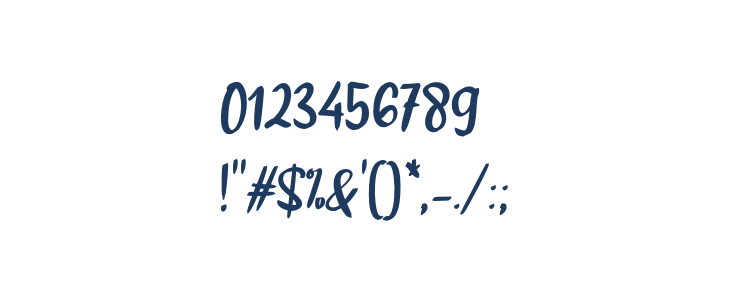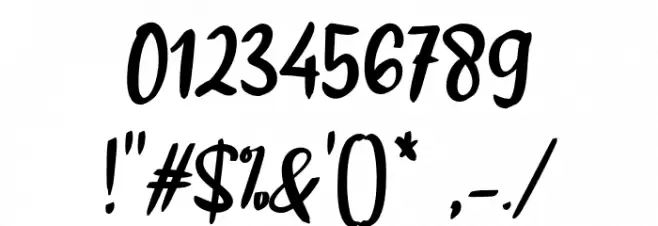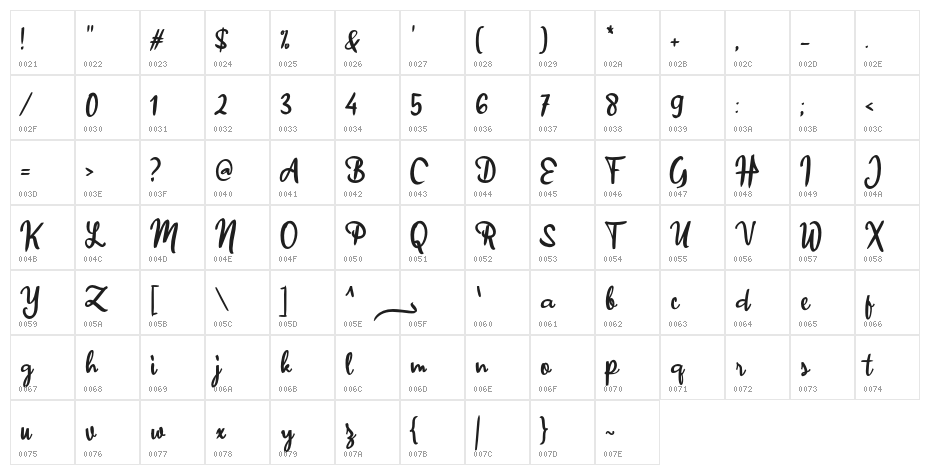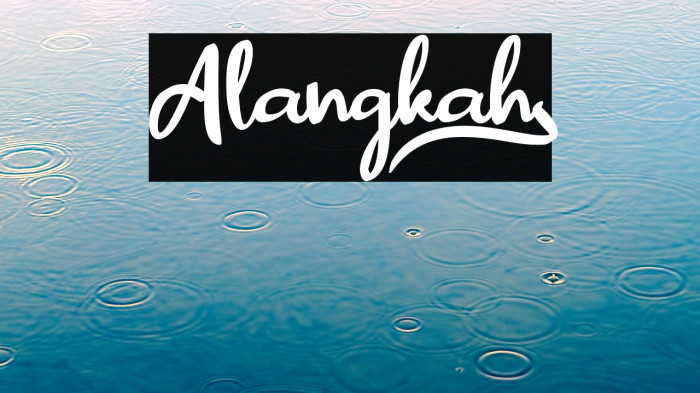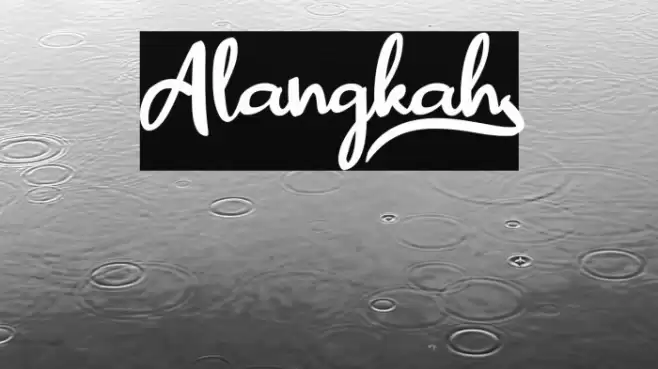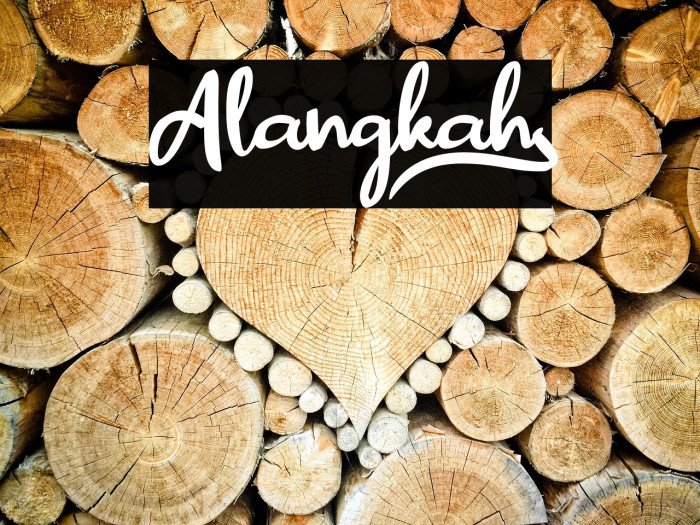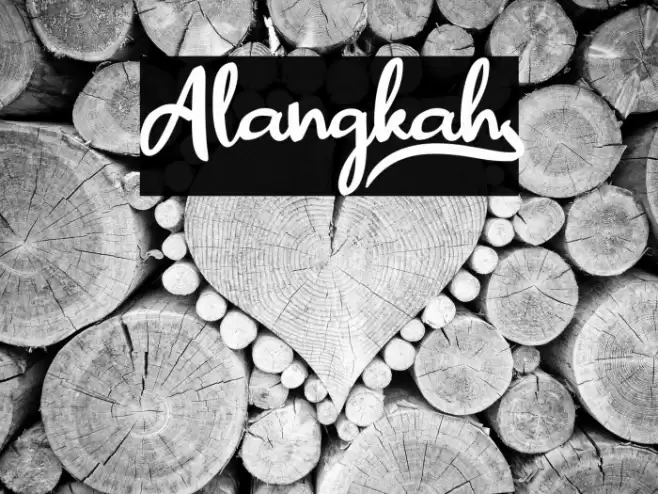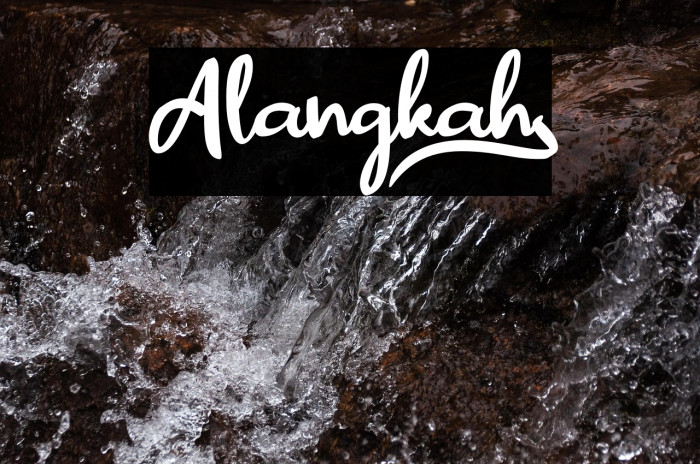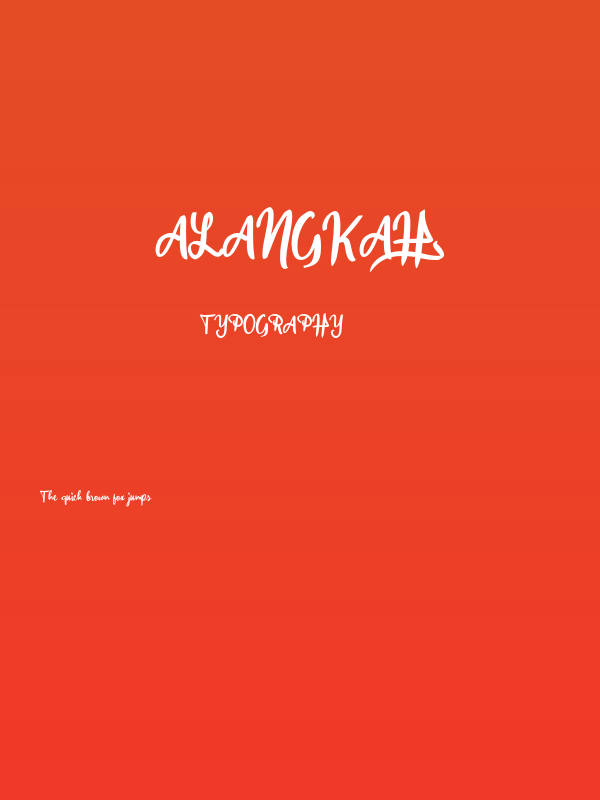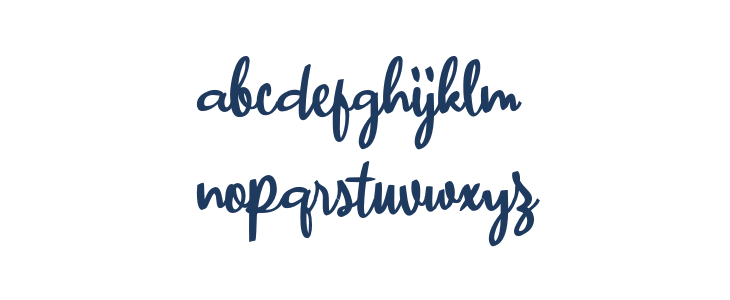
Alangkah_ Font
Alangkah_ Description
This font exudes a playful and energetic vibe with its bold, flowing script style. The characters are crafted with a sense of movement, featuring smooth curves and varying stroke widths that add a dynamic feel. The uppercase letters are slightly more structured, while the lowercase letters maintain a casual, handwritten appearance. Numbers and special characters are consistent with the overall style, ensuring a cohesive look across all text. The font's design is both approachable and stylish, making it suitable for a variety of creative applications.